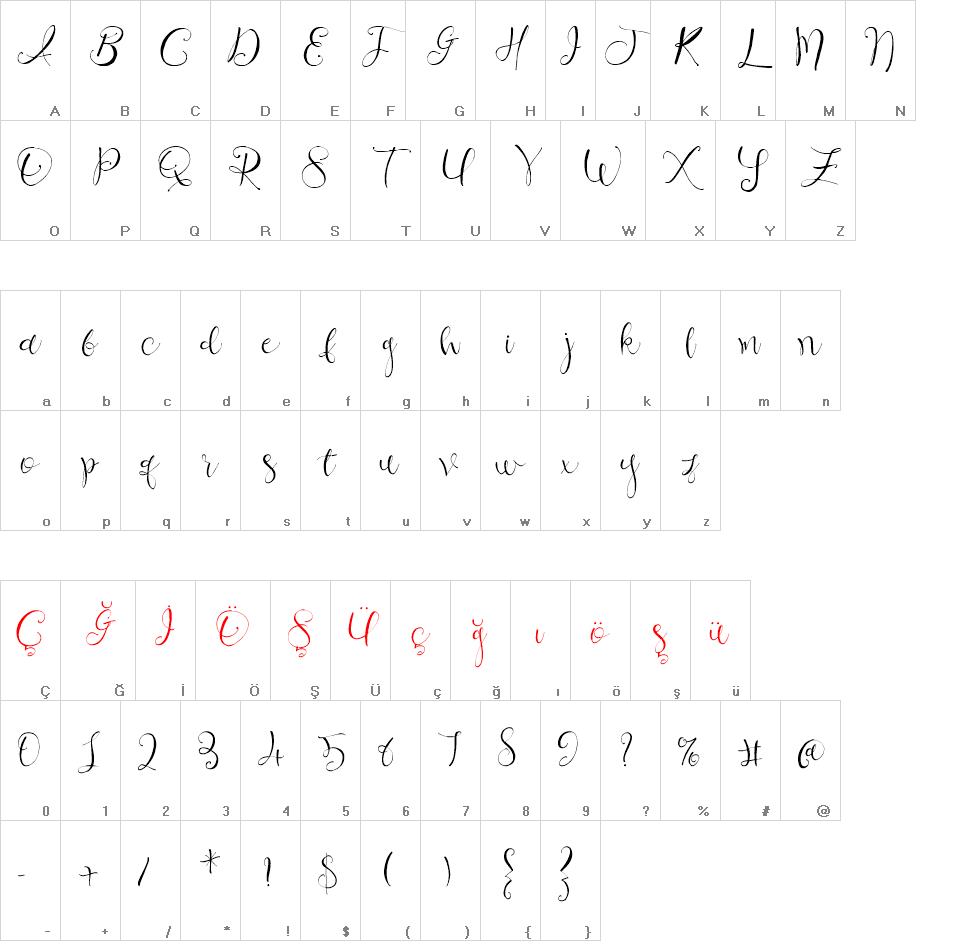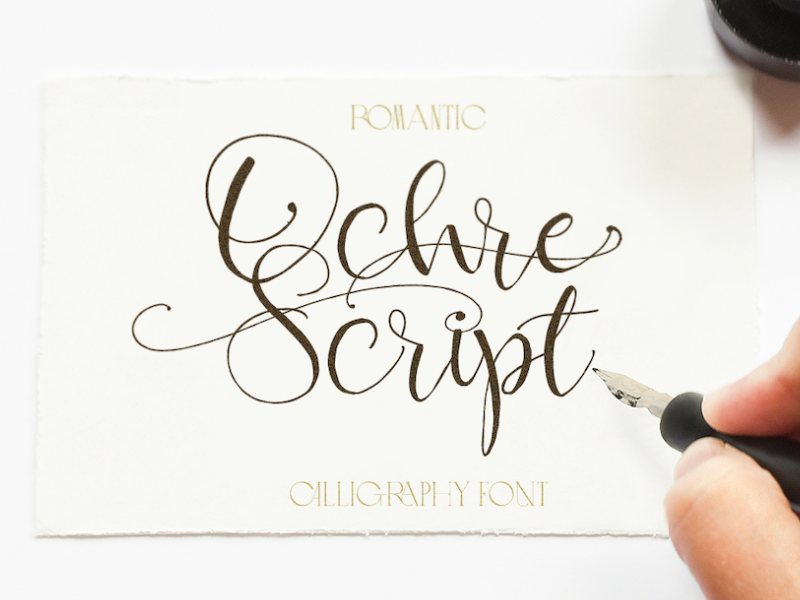
Ochre Script font
Ochre Script is a new free romantic calligraphy script font from Gizem Kiliç . This hand drawn font will add a personal touch of elegance to any upcoming project